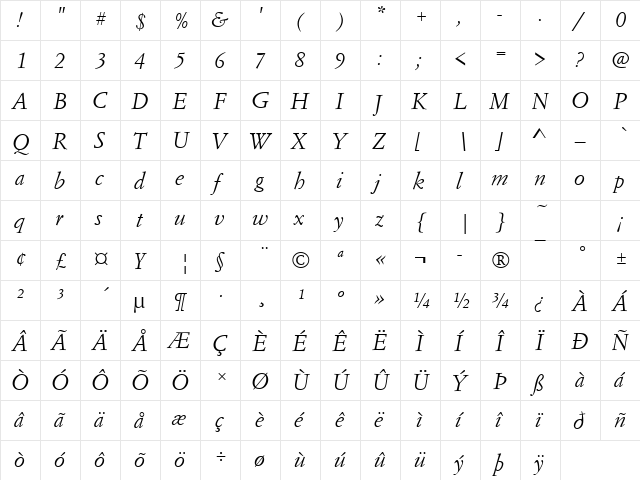
GaramondNo9TReg Italic
Design Context for GaramondNo9TReg Typeface
GaramondNo9TReg offers clean, dependable letterforms without strong stylistic allegiance, making it a practical choice for designers who need flexibility. The dynamic lean of this cut emphasises speed and emphasis in any layout.
Pro Tip: Try GaramondNo9TReg for annotation and caption copy alongside an upright companion — the contrast in angle creates a dynamic but ordered typographic system.